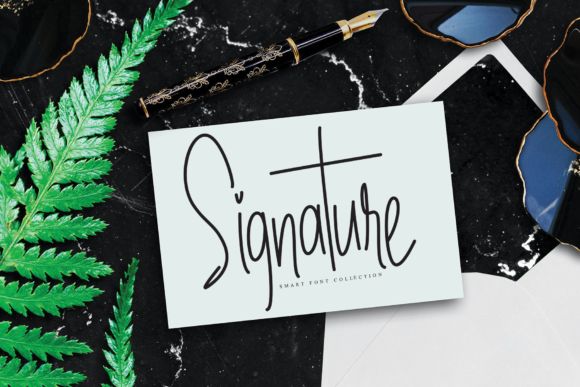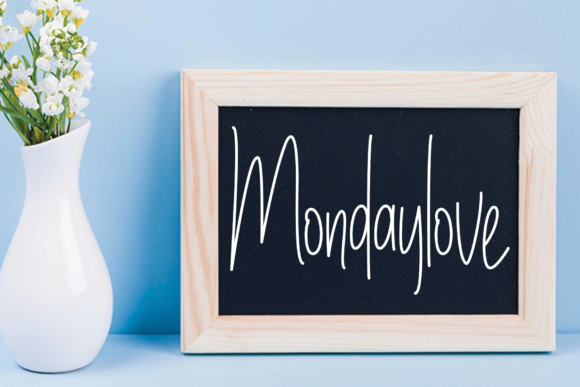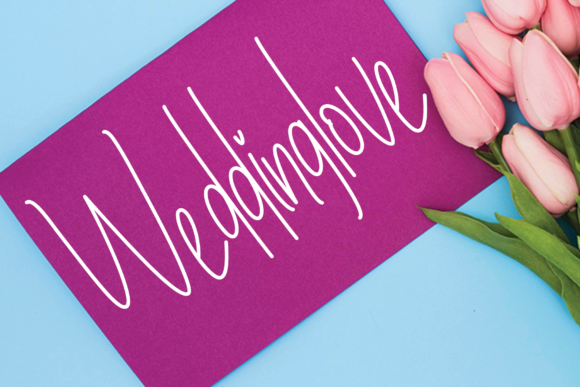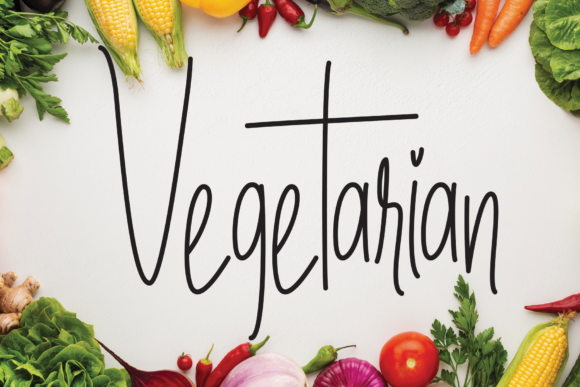
Creativenottes Font: A Delicate Handwritten Font for Crafty Ideas
In the world of typography, fonts play a crucial role in conveying the tone and personality of a brand or design. For crafty enthusiasts and designers, finding the perfect font can be a daunting task. However, if you’re looking for a unique and elegant handwritten font, look no further than Creativenottes. This thin, distinct, and dainty font features sweet and delicate swashes that will add a touch of sophistication to your designs.
What is Creativenottes Font?
Creativenottes is a carefully crafted handwritten font that boasts a distinctive and refined look. Its thin strokes and delicate swashes make it perfect for a wide range of crafty ideas, from letterheads and titles to stationery and more. The font’s original look is sure to appeal to designers and crafters who are looking for a unique and elegant typography solution.
Key Features of Creativenottes Font
- Thin and delicate strokes: Creativenottes features thin and delicate strokes that give it a refined and elegant look.
- Sweet and delicate swashes: The font’s swashes add a touch of sophistication and elegance to your designs.
- Handwritten look: Creativenottes has a genuine handwritten look that will add a personal touch to your designs.
- Versatile: The font is perfect for a wide range of crafty ideas, from letterheads and titles to stationery and more.
Uses of Creativenottes Font
Creativenottes is a versatile font that can be used for a variety of design projects. Here are some ideas to get you started:
- Letterheads and titles: Use Creativenottes to create elegant and sophisticated letterheads and titles.
- Stationery: Add a touch of elegance to your stationery with Creativenottes.
- Branding and packaging: Use the font to create unique and memorable branding and packaging designs.
- Wedding and event designs: Creativenottes is perfect for wedding and event designs, such as invitations, menus, and more.
Why Choose Creativenottes Font?
With so many fonts available, why choose Creativenottes? Here are just a few reasons:
- Unique and elegant look: Creativenottes has a distinctive and refined look that will set your designs apart.
- Easy to read: Despite its delicate strokes, Creativenottes is easy to read and will not compromise on legibility.
- Versatile: The font can be used for a wide range of design projects, making it a great addition to your font library.
Tips for Using Creativenottes Font
Here are a few tips for using Creativenottes effectively:
- Use it sparingly: Creativenottes is a delicate font, so use it sparingly to avoid overwhelming your design.
- Pair it with a bold font: Pair Creativenottes with a bold font to create a striking contrast.
- Experiment with colors: Creativenottes looks great in a variety of colors, so don’t be afraid to experiment.
Creativenottes is a beautiful and elegant handwritten font that is perfect for crafty enthusiasts and designers. Its thin strokes, delicate swashes, and genuine handwritten look make it a great addition to any font library. Whether you’re looking to create elegant letterheads, sophisticated stationery, or unique branding and packaging designs, Creativenottes is the perfect choice.